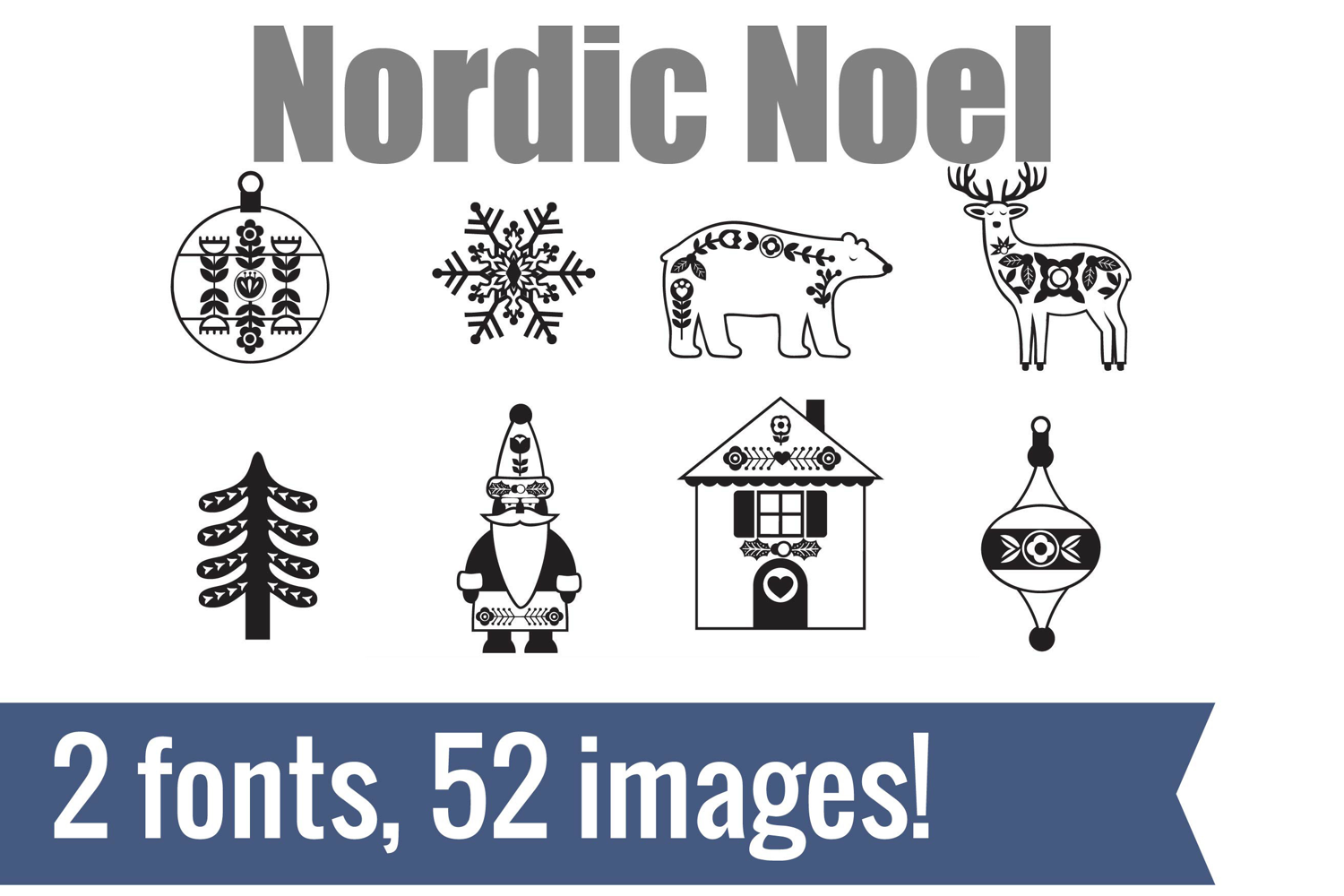
Nordic Noel Dingbats
Unlock endless creativity with two perfectly coordinated fonts! There are two dingbat fonts in this bundle, both featuring the florals and holiday imagery with Scandinavian design.
Tired of spending hours searching for the perfect icons and graphics? Our dingbat fonts put dozens of cohesive, scalable designs at your fingertips. Simply install the font and type a letter to produce a pre-made image. From charming seasonal icons for holiday cards to intricate frames for your invitations, these fonts let you create stunning designs for vinyl cutting, paper crafts, planners, and more.